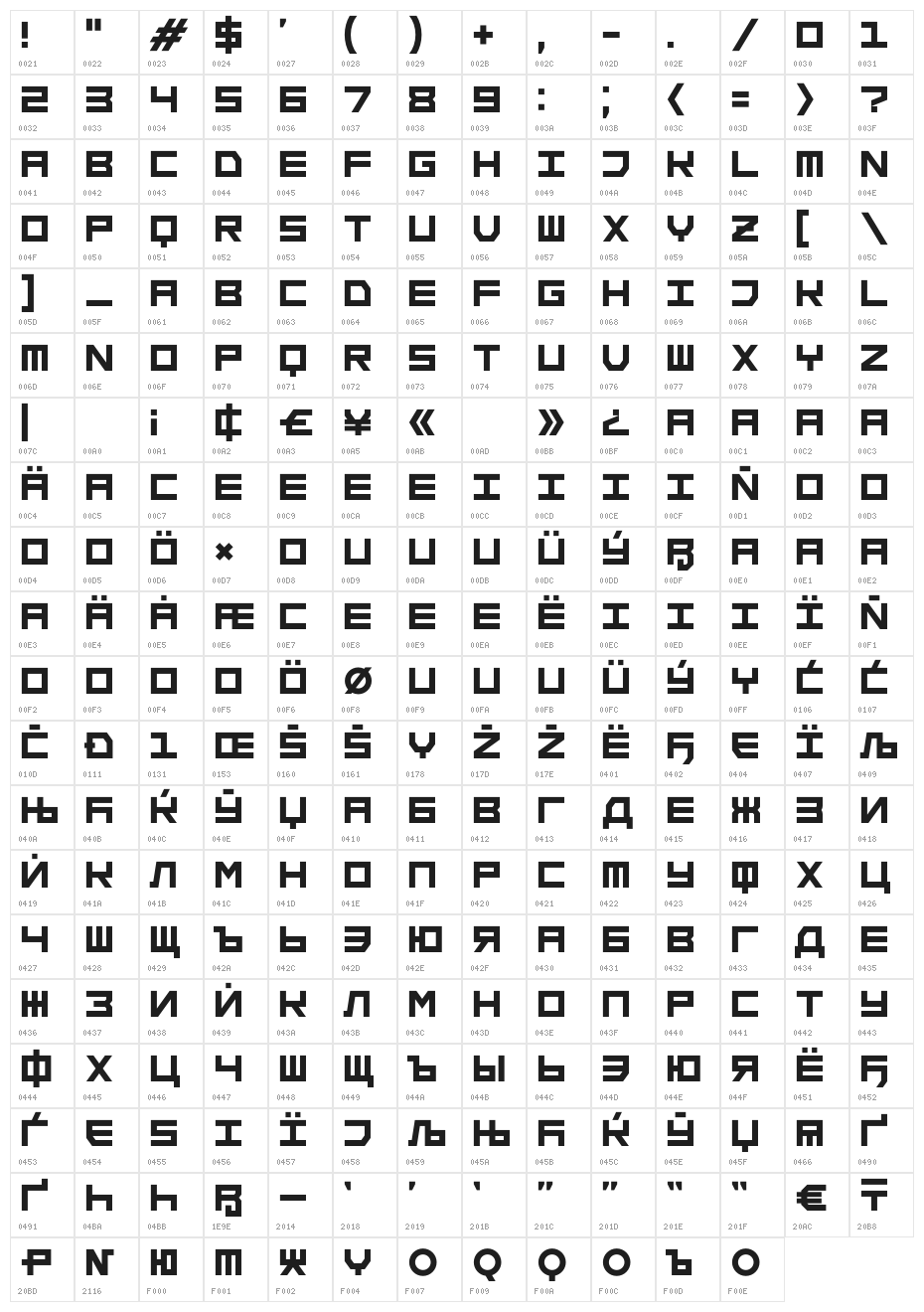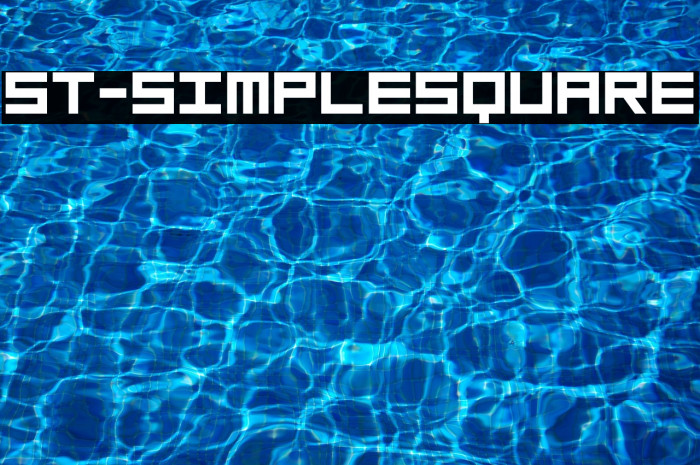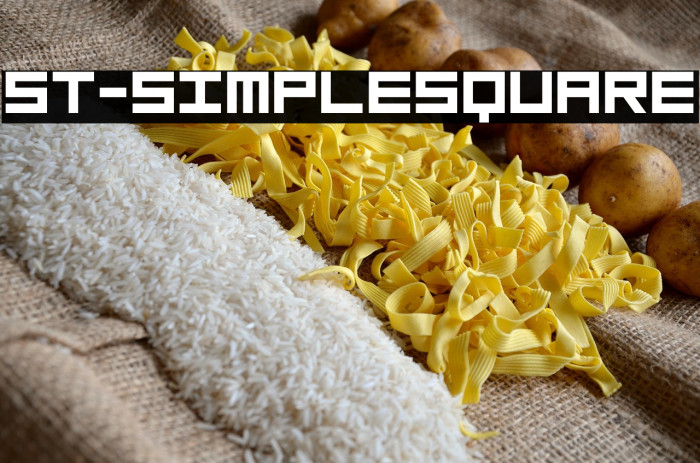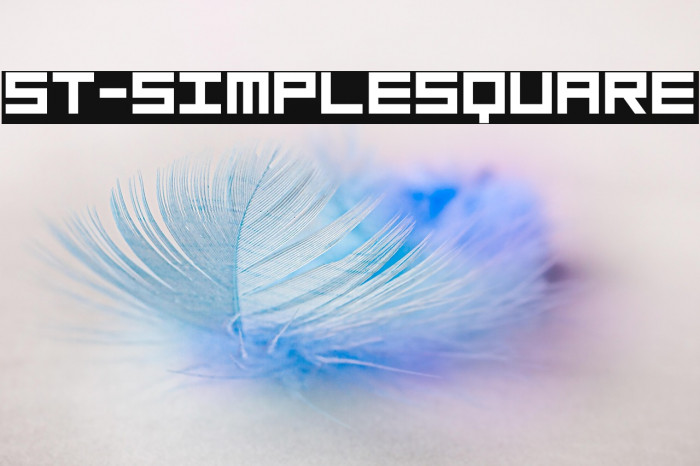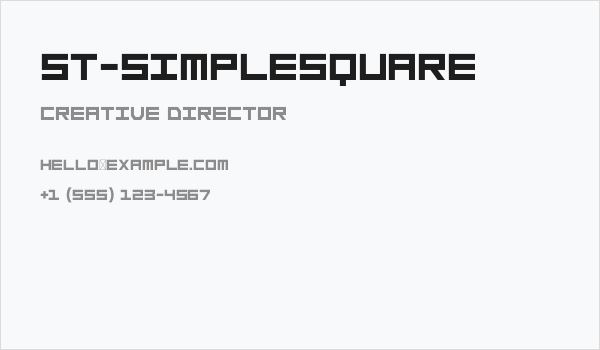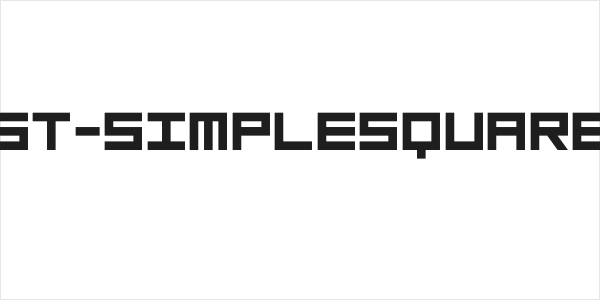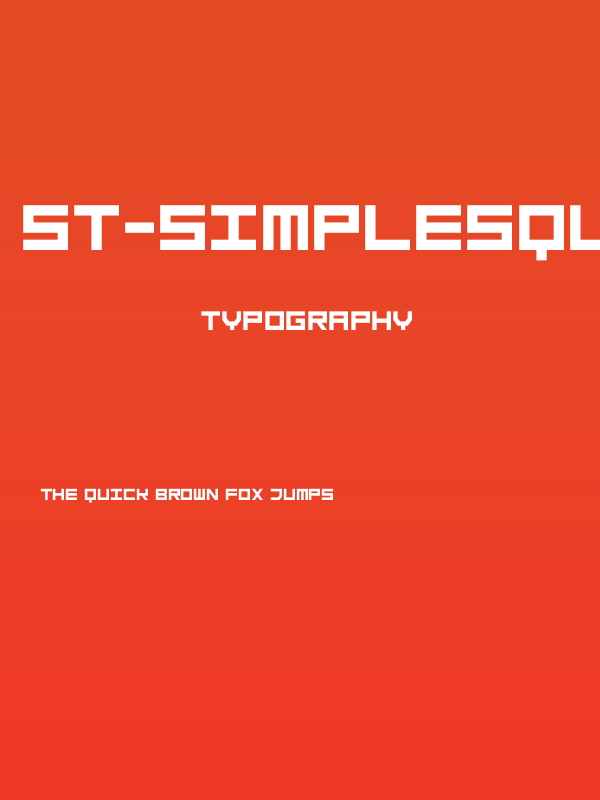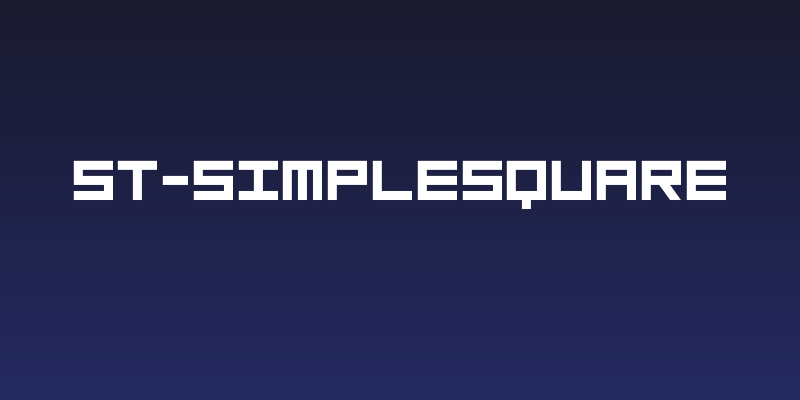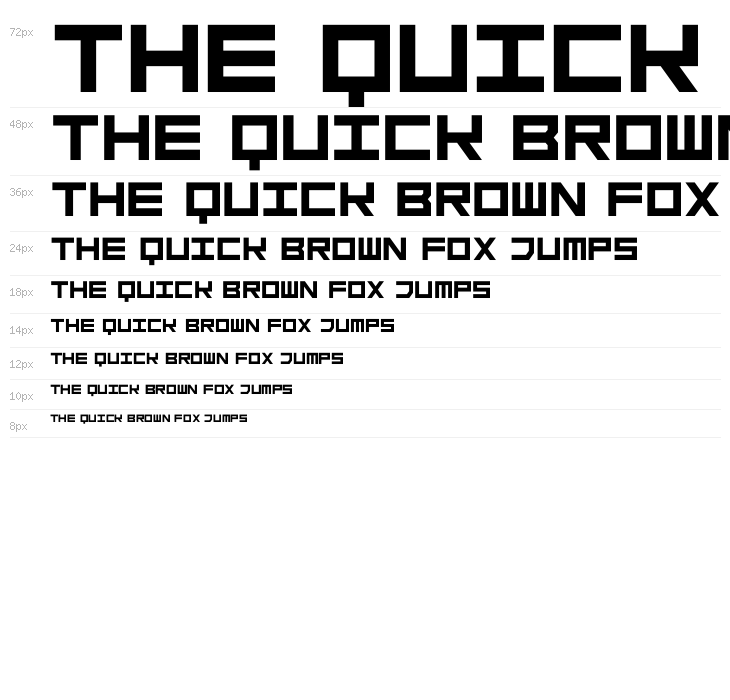
ST-SimpleSquare Font
ST-SimpleSquare Description
This font features a bold, geometric design with a distinctly modern and futuristic aesthetic. The characters are constructed with sharp angles and straight lines, giving them a blocky, square appearance. The uniformity in line thickness across all characters contributes to a cohesive and structured look. The uppercase and lowercase letters maintain a consistent style, with the lowercase mirroring the uppercase in form and structure. Numbers and special characters follow the same design principles, ensuring a harmonious overall appearance. The font's strong visual impact makes it suitable for attention-grabbing applications.
| Proposed Projects | Ideal for technology branding, video game titles, sci-fi posters, and digital interfaces. |